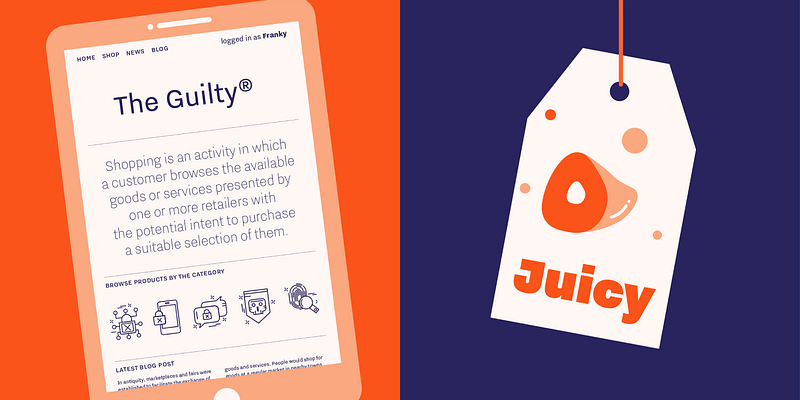
Nitti Grotesk Font Free Download
Nitti Grotesk Font Free Download is a clean and contemporary sans-serif typeface known for its neutral tone and geometric balance. Designed with clarity and functionality in mind, it's perfect for editorial content, corporate branding, user interfaces, and web design. The font’s minimalist style ensures excellent readability while maintaining a modern, professional look.
Whether used for body text or headlines, Nitti Grotesk delivers a consistent and polished appearance across all platforms. It's fully compatible with tools like Adobe XD, Figma, and InDesign, making it a go-to choice for designers who value simplicity and versatility.